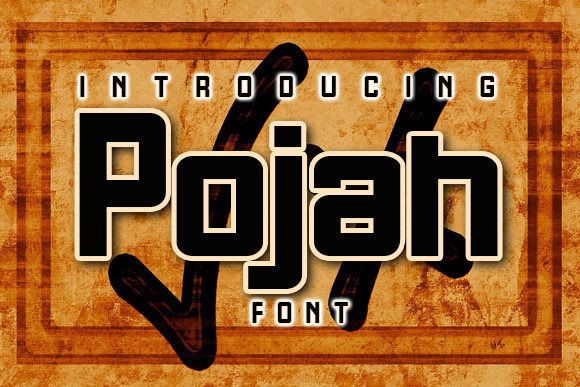
Introducing Pojah – A Dazzling Sans Serif Display Font Family for Bold and Expressive Design.
In the realm of typography, there lies a font that radiates brilliance and commands attention like no other – Pojah. This modern Sans Serif font family, meticulously crafted by the artist vladimirnikolic, transcends conventional boundaries, redefining the very essence of visual communication.
With its bold and expressive strokes, Pojah brings forth a symphony of visual delight that captivates the senses and ignites the imagination. Whether you're a seasoned designer or just starting your creative journey, Pojah is your steadfast companion, ready to elevate your projects to new heights of visual excellence.
Designed with meticulous attention to detail, Pojah's clean and crisp lines exude a sense of sophistication and modernity that is simply breathtaking. Its sharp edges and generous curves create a dynamic harmony, making it the ideal choice for creating impactful headlines, striking logos, and eye-catching posters that demand attention.
This versatile Sans Serif font family is a true chameleon, effortlessly adapting to a myriad of creative endeavors. Unleash your creativity and envision Pojah's stunning presence on flyers, business cards, packaging designs, social media graphics, and even apparel such as t-shirts. No matter the medium, Pojah leaves an indelible mark, leaving your audience mesmerized.
With Pojah at your fingertips, you'll discover a world of infinite possibilities. Let your imagination soar as you craft typographic masterpieces that resonate with your audience, leaving a lasting impression that lingers in their minds long after they've encountered your designs.
Don't settle for ordinary fonts that blend into the background. Embrace the extraordinary with Pojah, the Sans Serif font family that commands attention and sets your designs apart. Elevate your creations to the realm of the extraordinary and watch as Pojah transforms your vision into a reality that captivates and inspires.